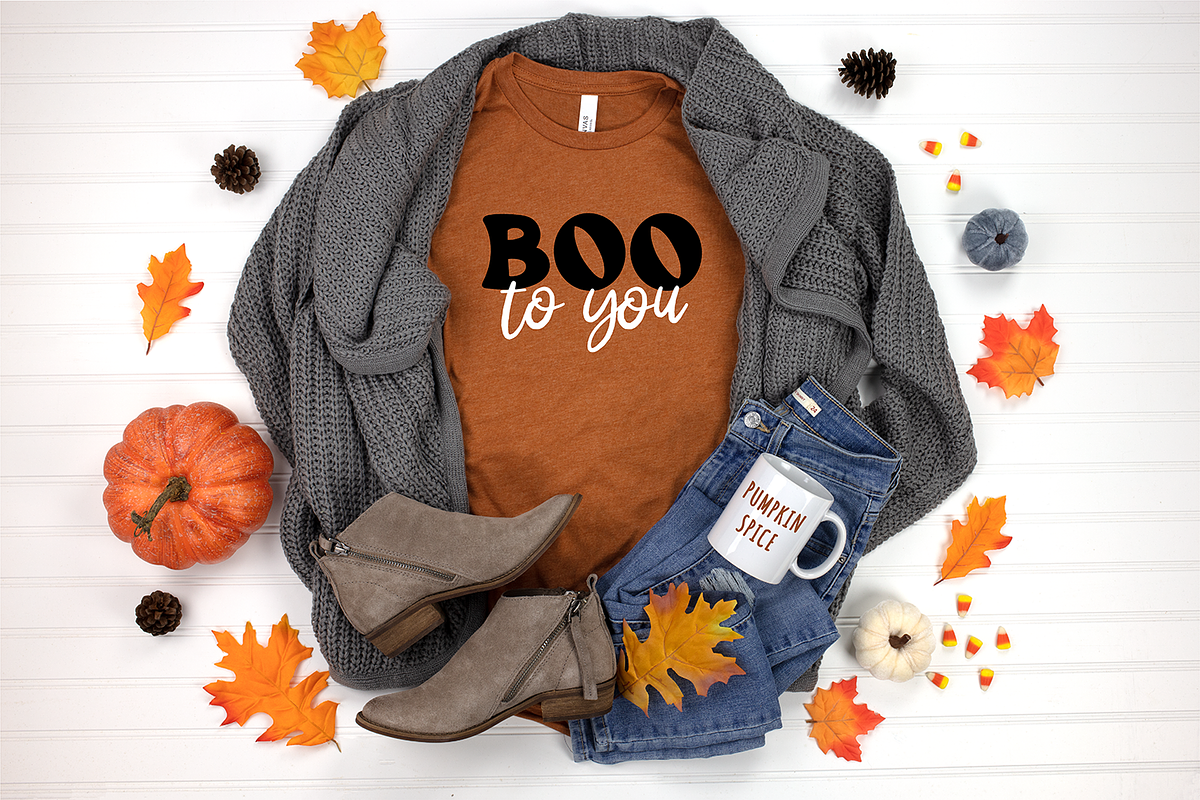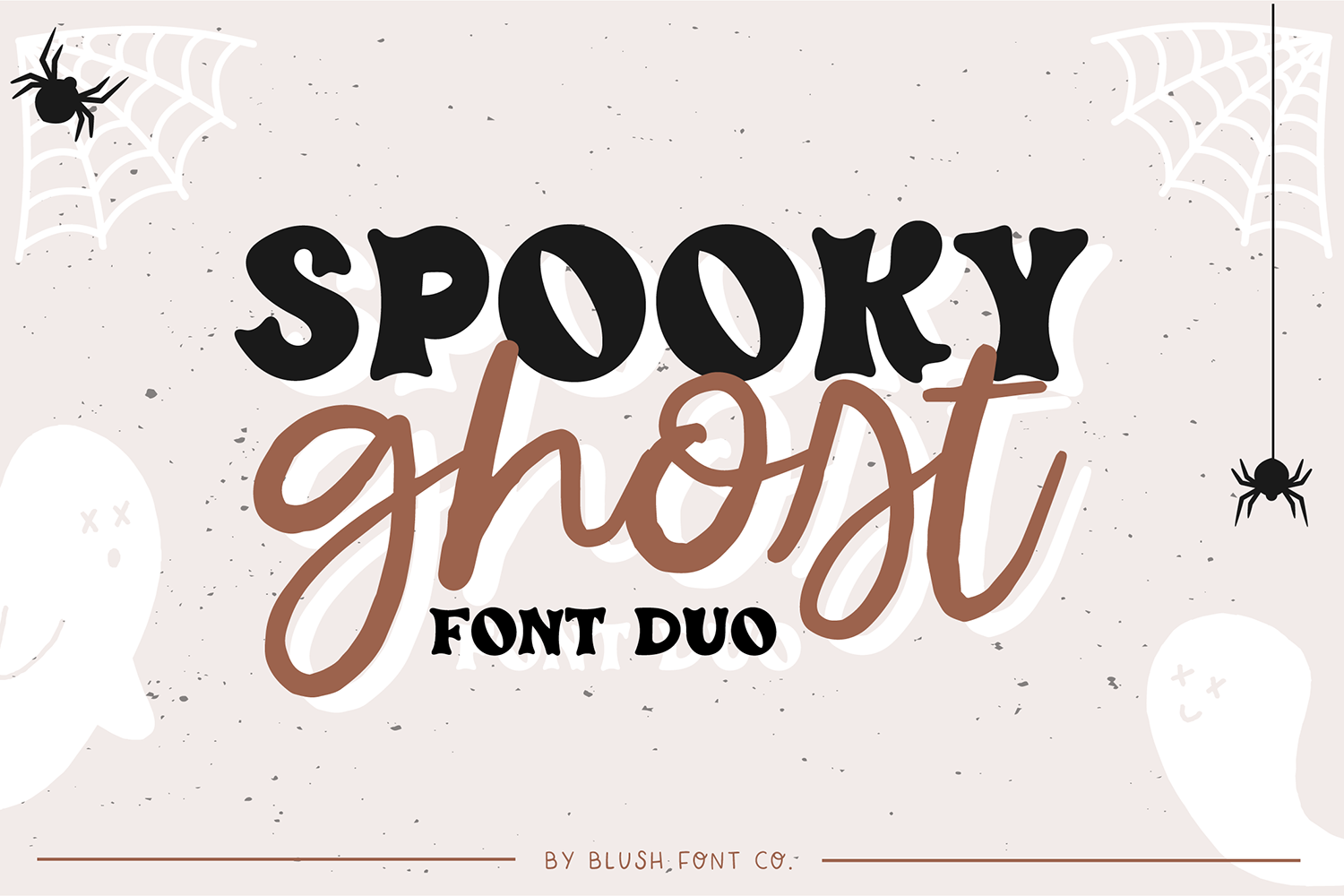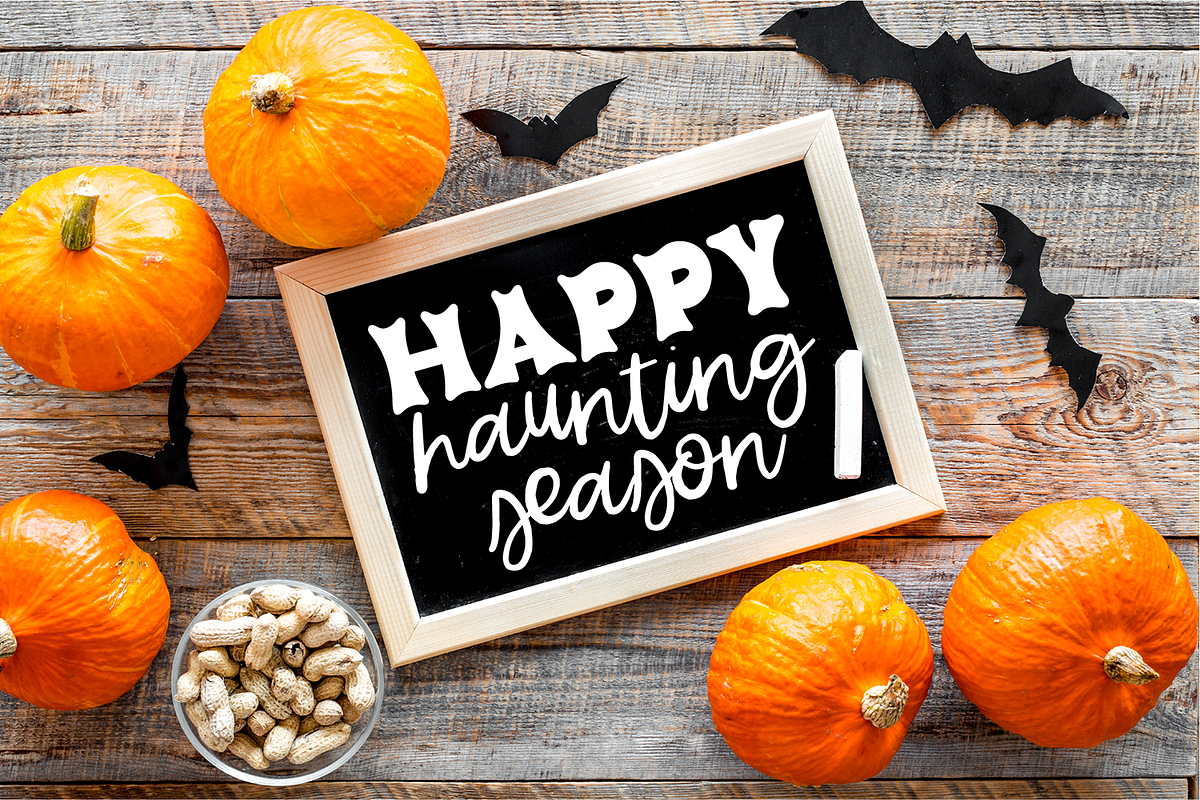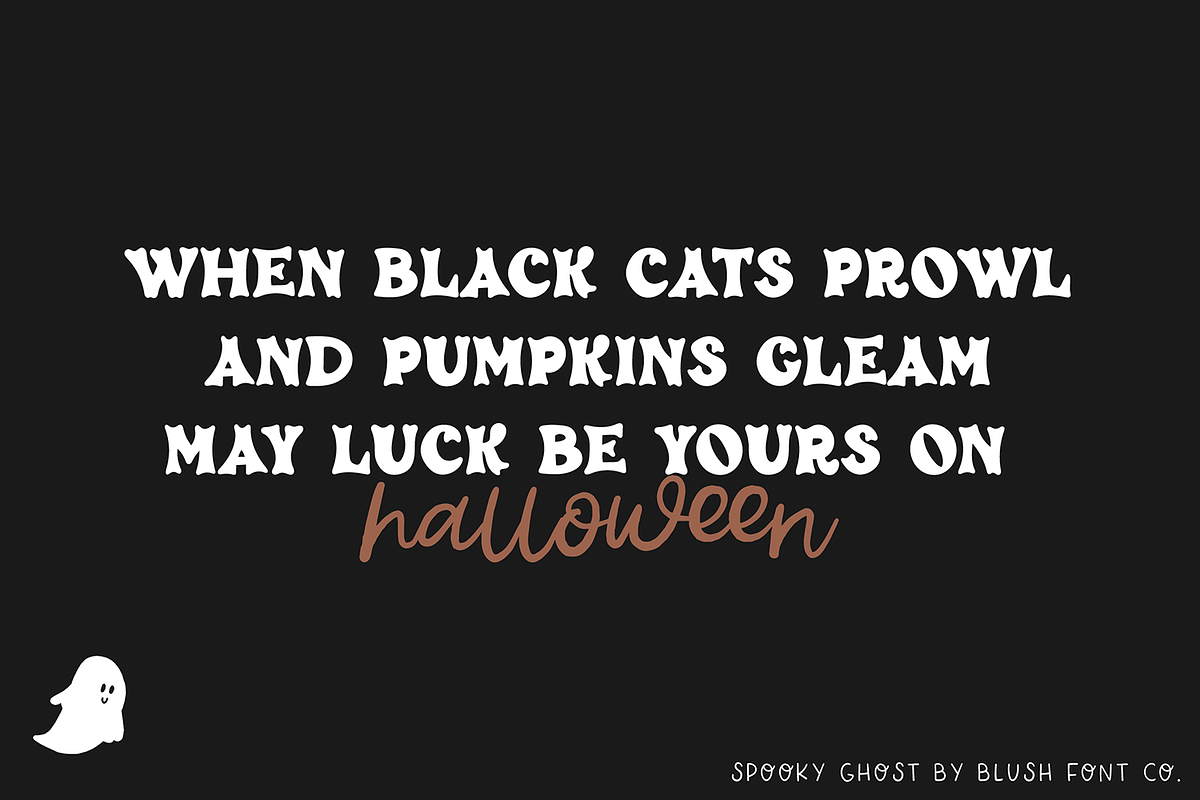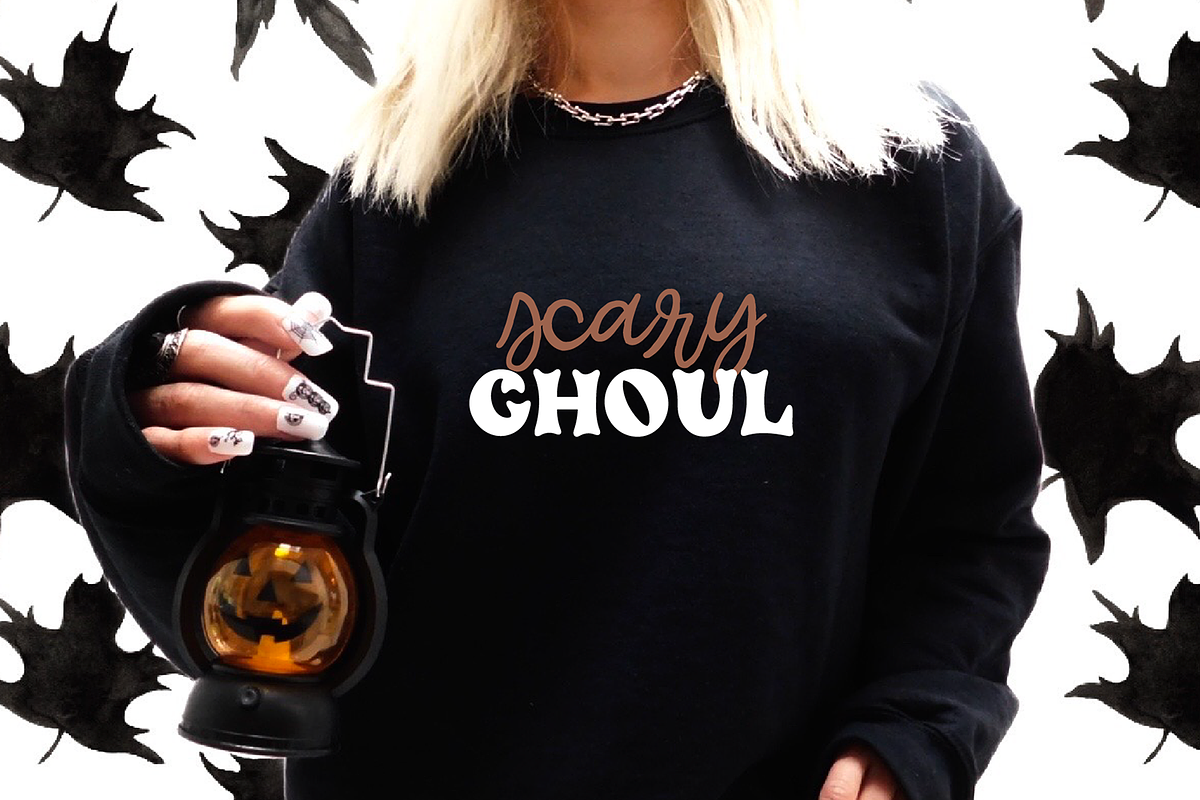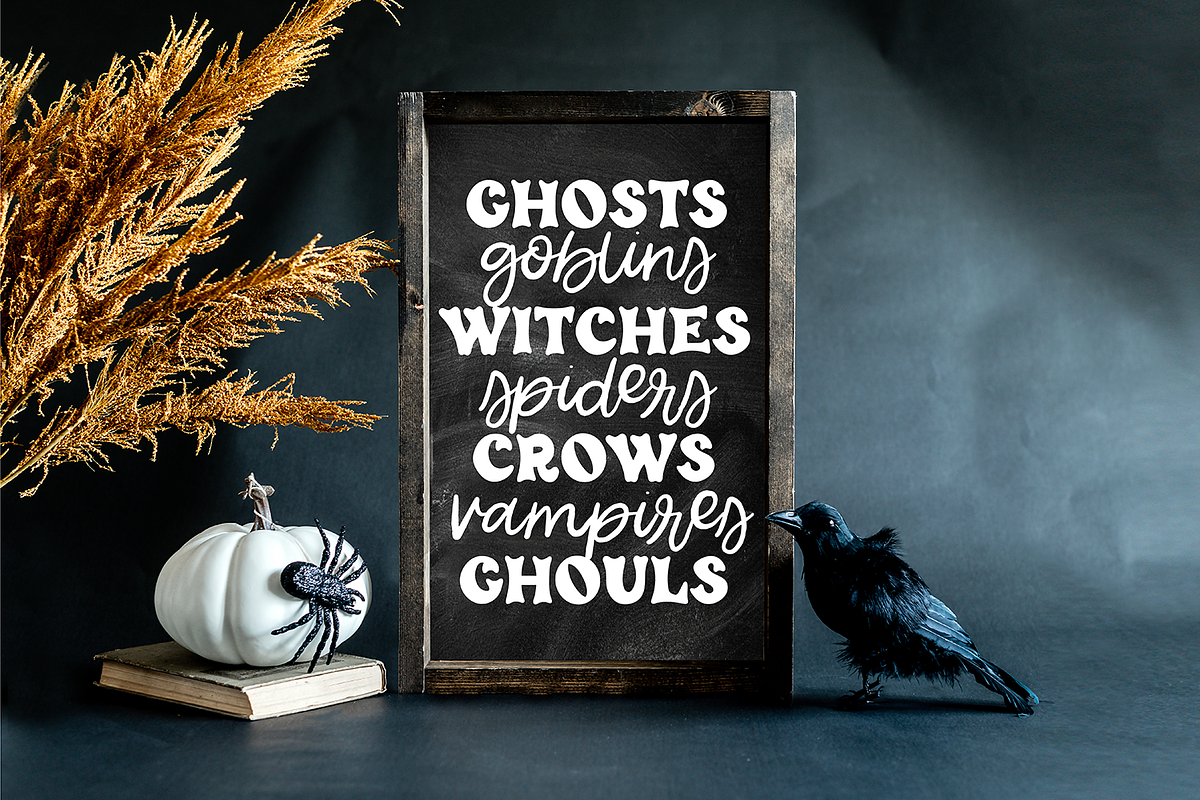
Spooky Ghost Halloween Font Duo
"Spooky Ghost" Halloween Font Duo.
A perfect pair of Halloween fonts. They look great on their own or together!
Both fonts come with numbers and basic punctuation. The bold font is all caps letters, and the script font is all lowercase letters.